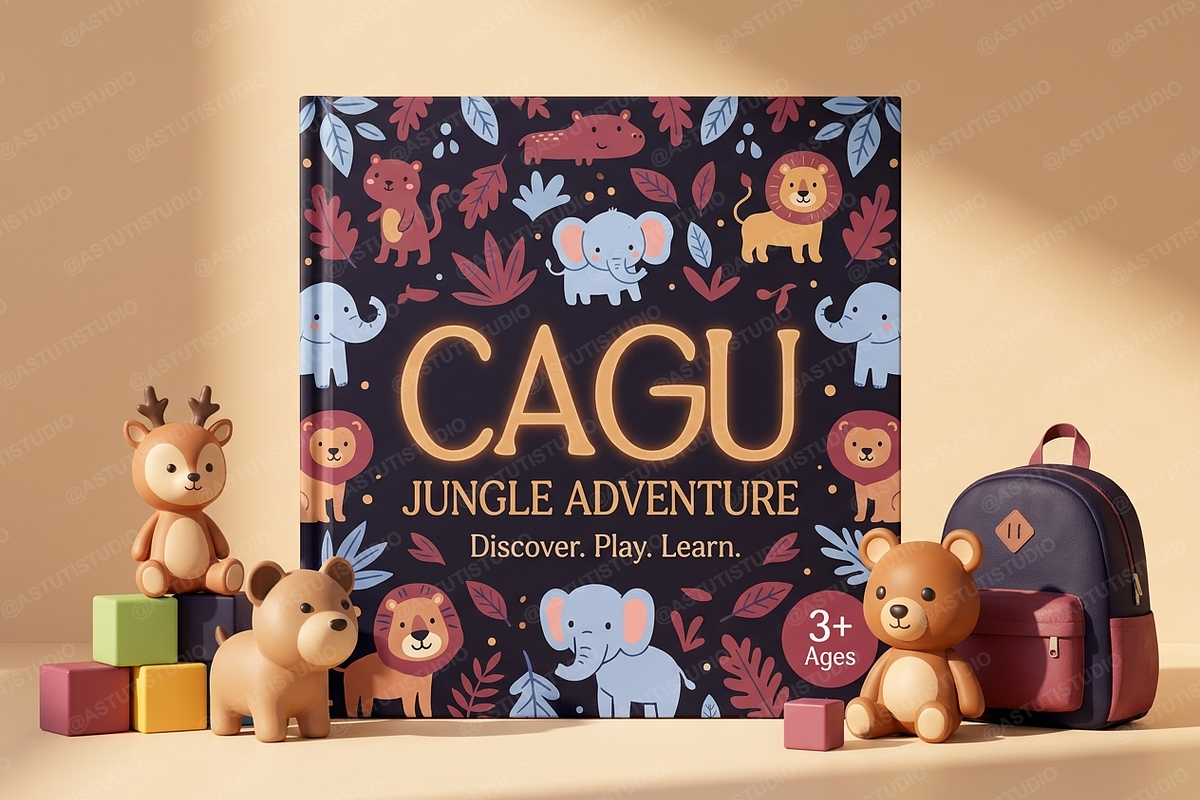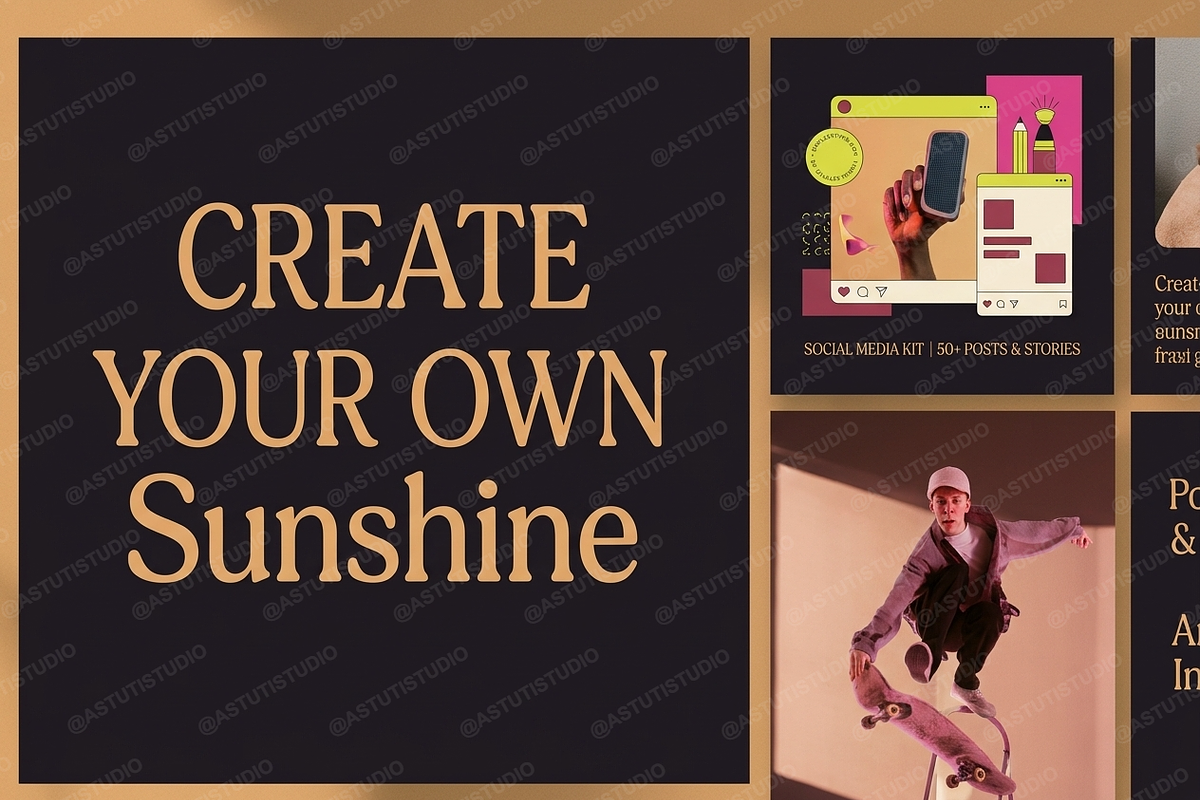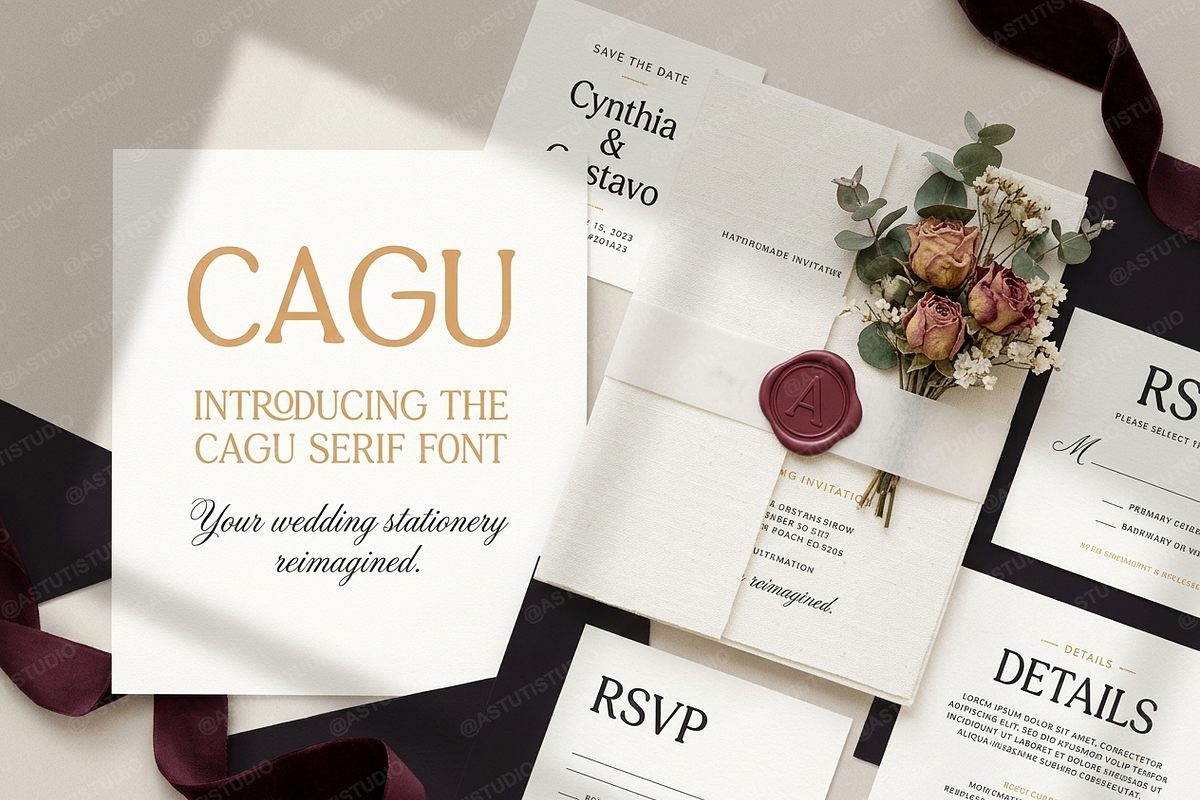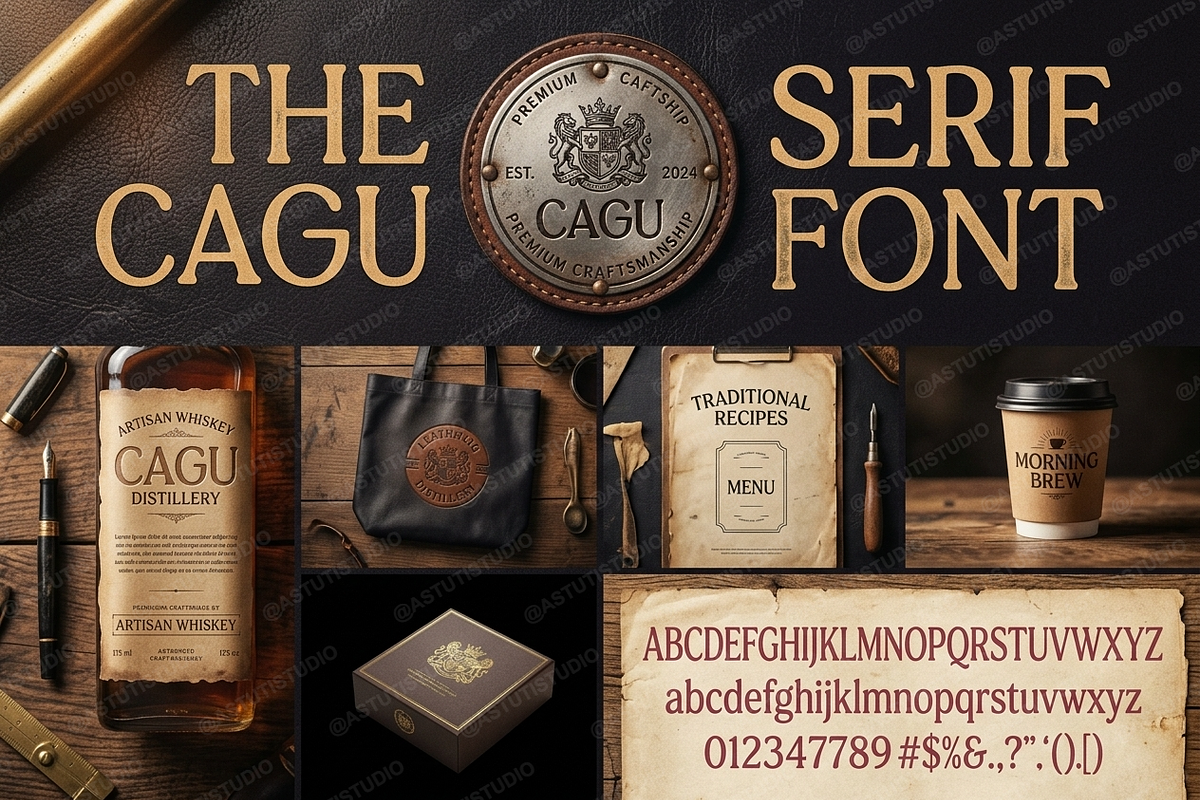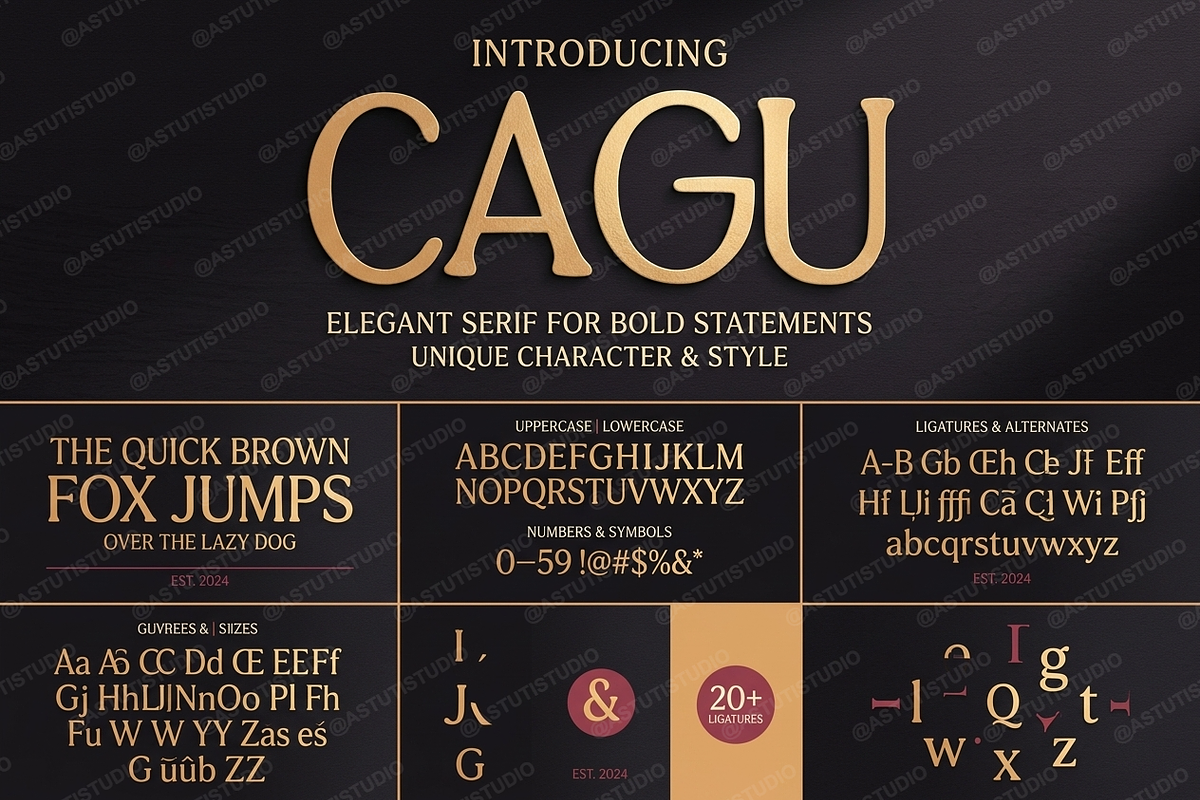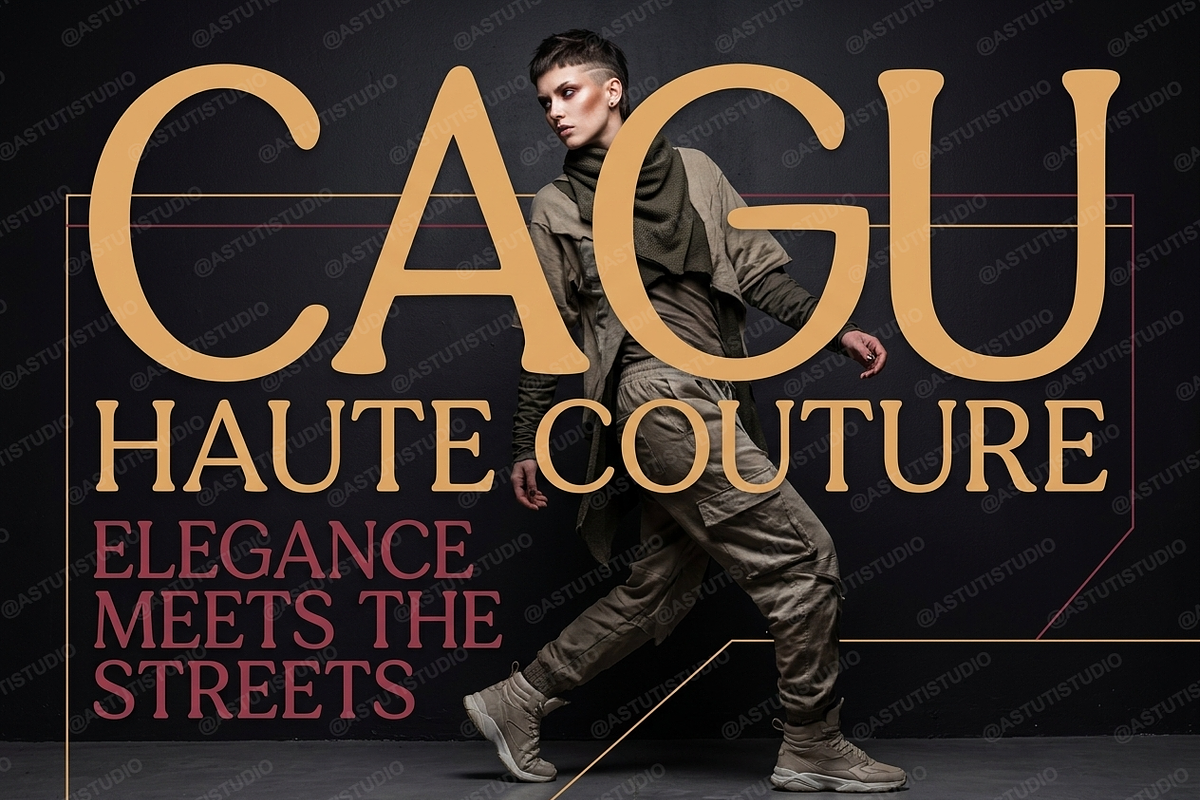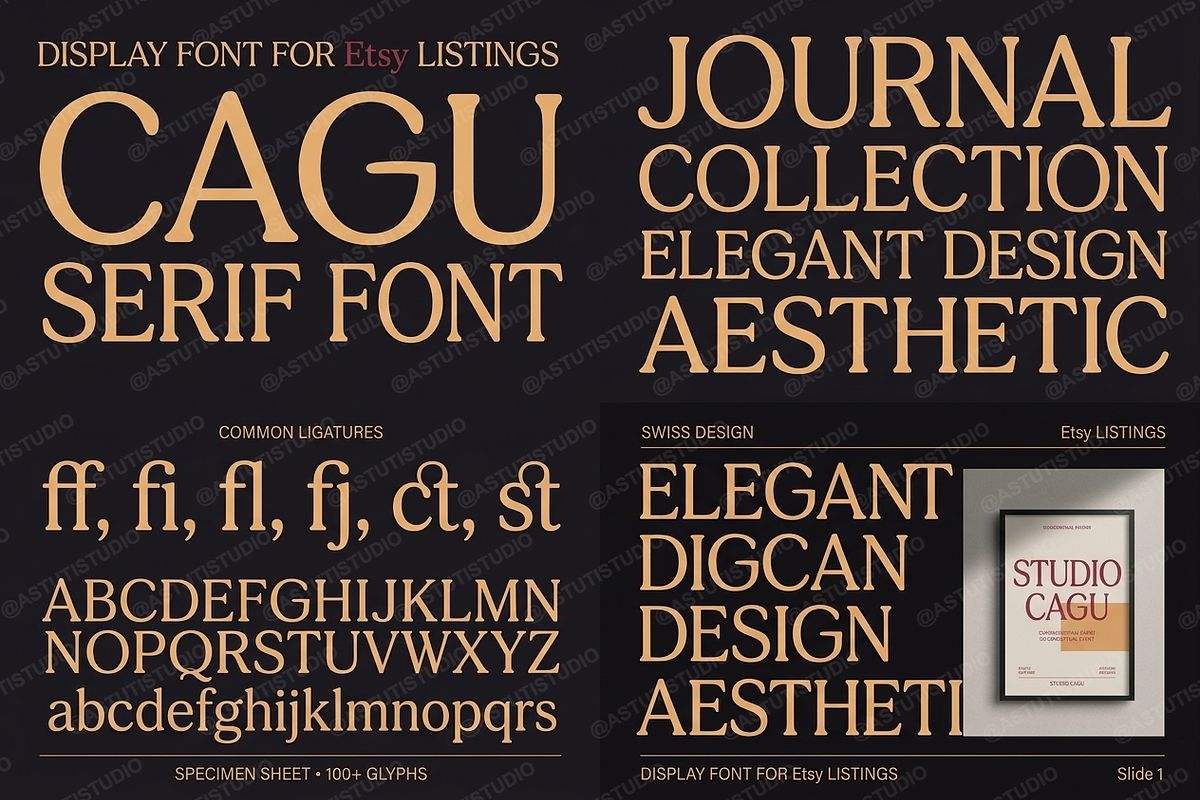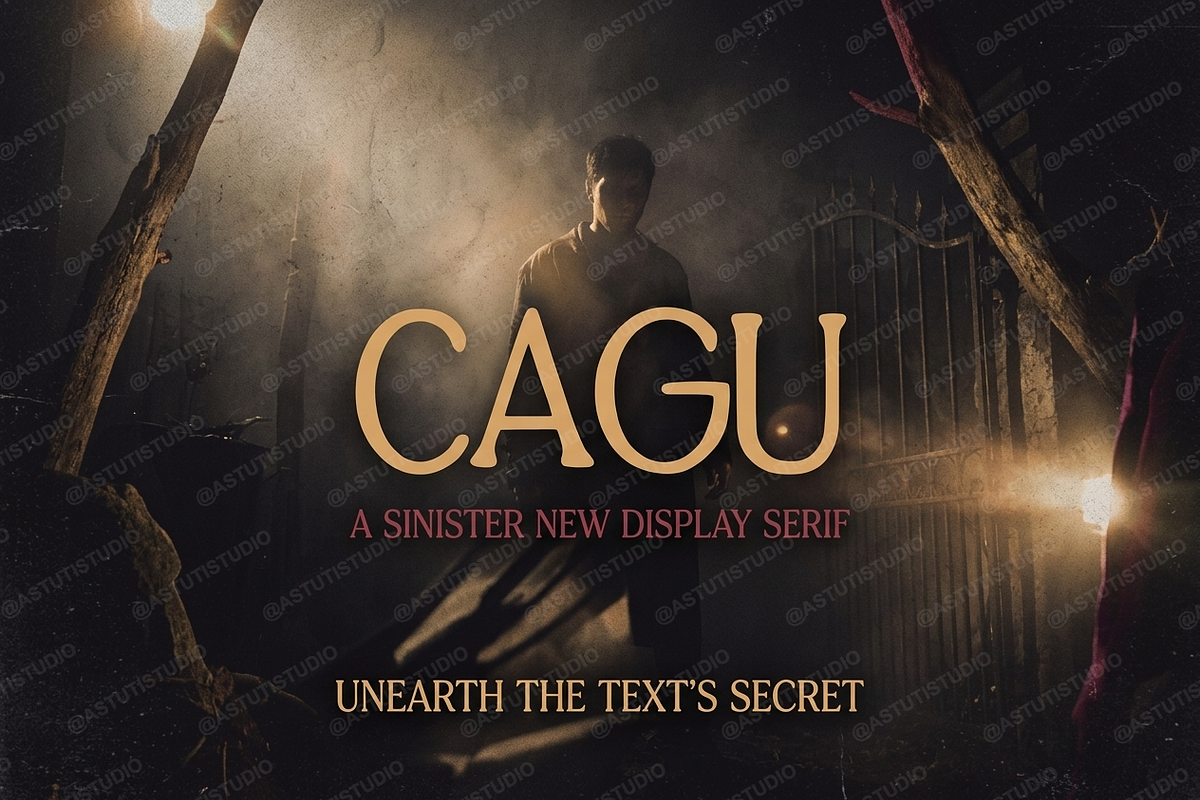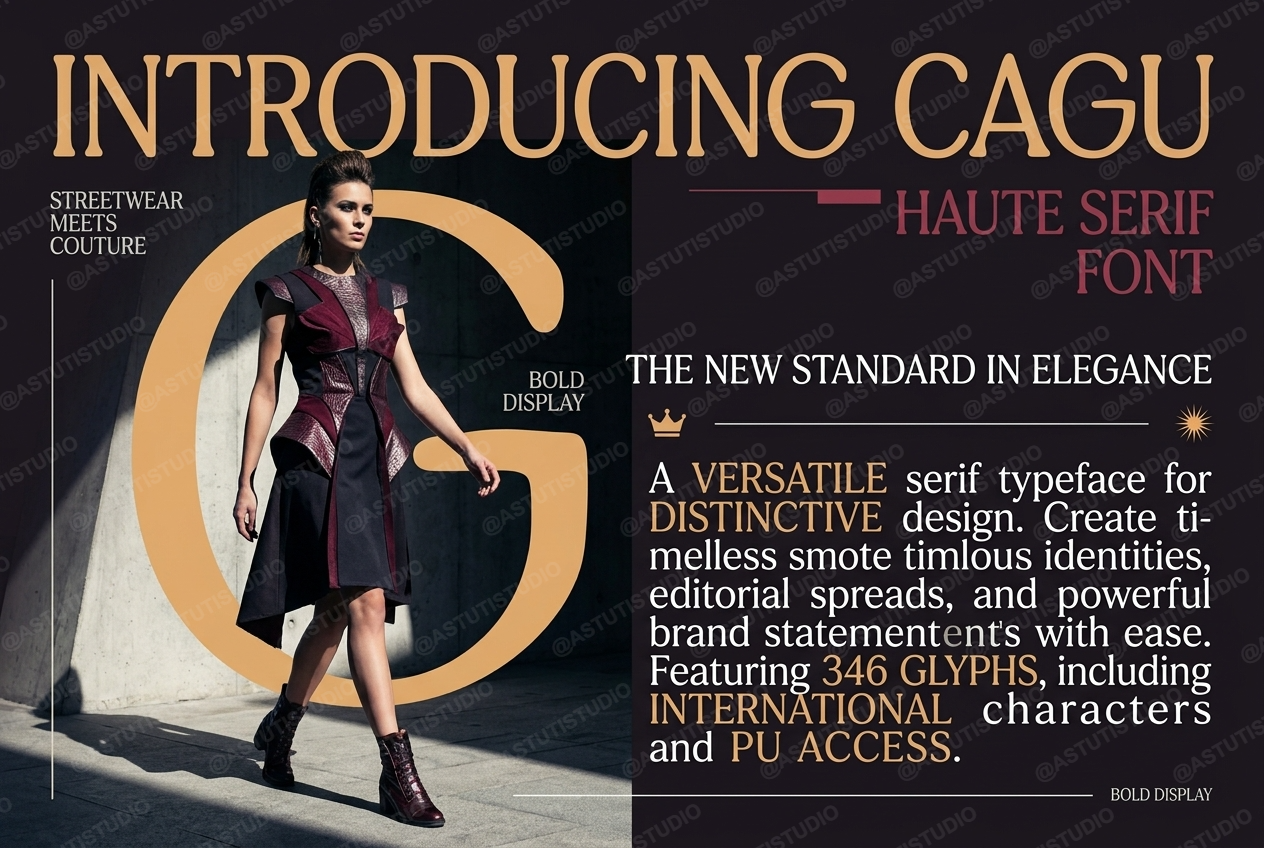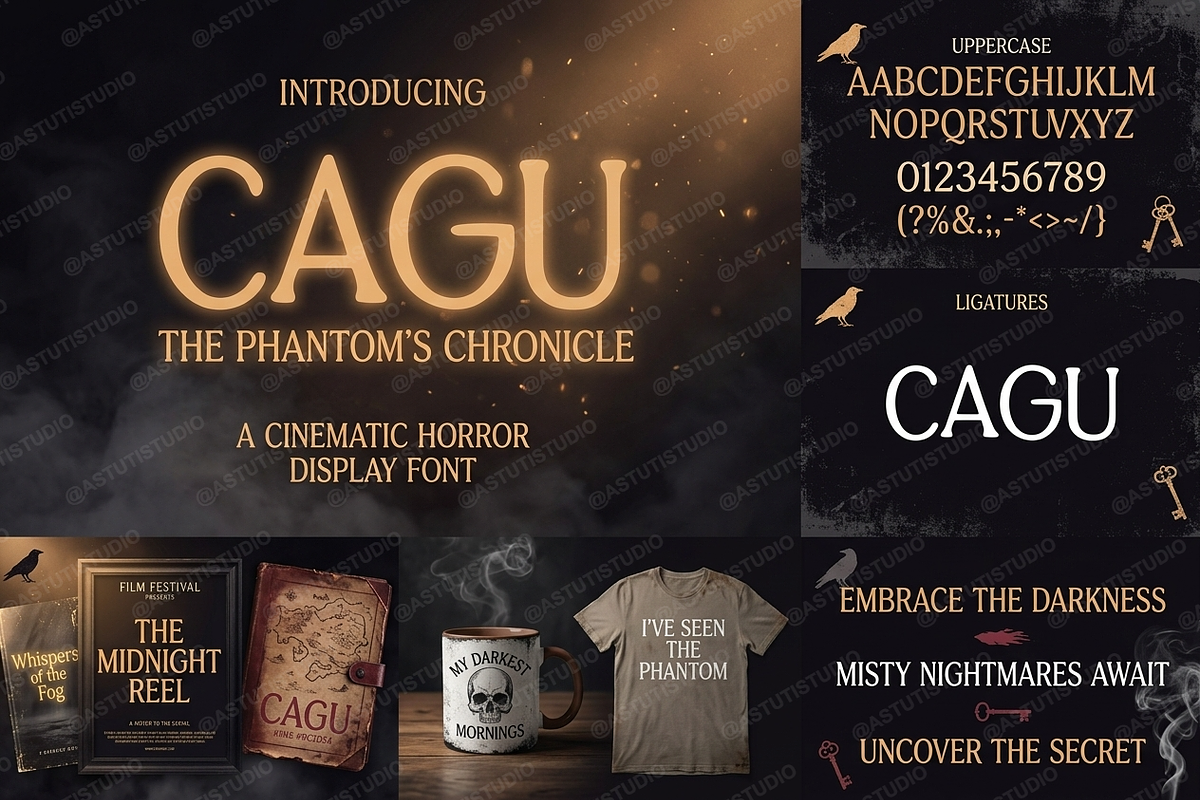
Cagu - Modern Luxury Serif Typeface
INTRODUCTION
Cagu is a sophisticated serif typeface meticulously crafted for the modern creative studio. Drawing inspiration from high-fashion editorial layouts and luxury brand identities, Cagu brings a sense of effortless elegance to every design. Its balanced proportions and refined curves make it an essential tool for designers seeking a premium, high-end aesthetic.
This typeface is perfectly suited for luxury branding, editorial layouts, wedding invitations, high-end packaging, and chic social media content.
- Full uppercase and lowercase alphabet
- Numbers and comprehensive punctuation
- A collection of elegant ligatures for a custom look
- Extensive multilingual support
- Clean, high-contrast serif details